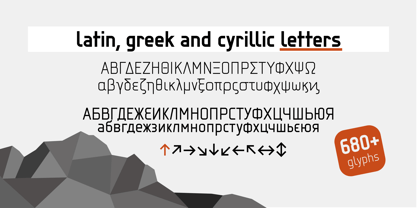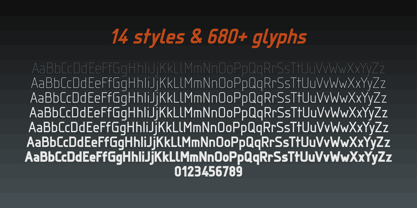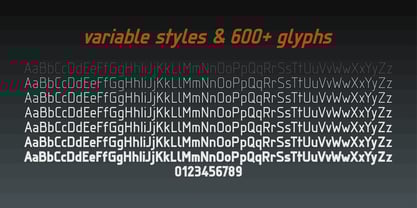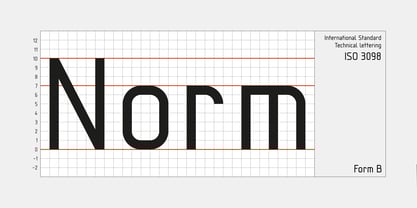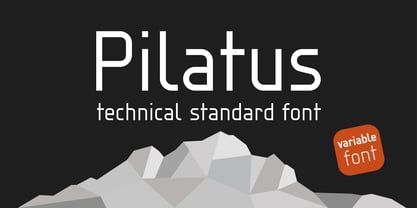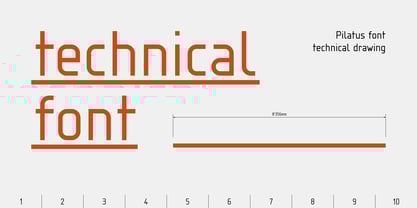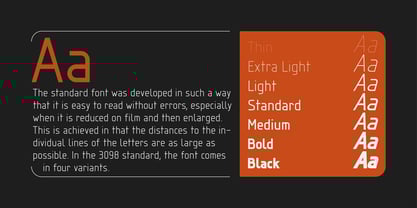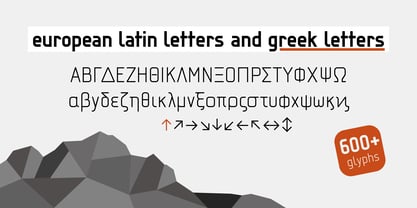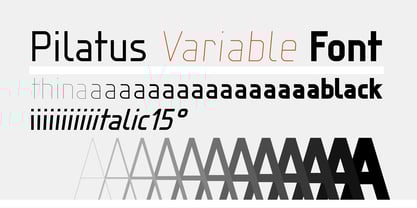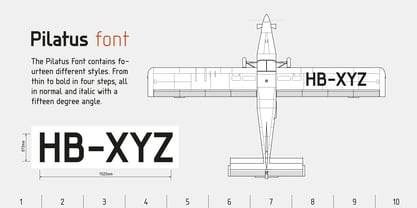
Pilatus Variable
by Milan Rohrer Studio
The Pilatus Variable Font Family was designed by Milan Rohrer and published by Milan Rohrer Studio. Pilatus Variable contains 1 styles. More about this family
This is the variable version of the Pilatus font, combining all possible styles into a single, highly flexible file. It allows continuous adjustment of weight and slant, providing precise control between the extremes of the static styles. The variable format ensures efficient performance, smaller file sizes, and smooth transitions, making it ideal for responsive interfaces, technical applications, and modern design workflows while preserving the strict geometric character of the Pilatus family.
I'm an Industrial Designer based in Switzerland. Now working on physical product design in several industries I've always been driven by the power of graphic design. Clearly geometrical forms and precise forms inspired me. When I was learning technical drawing of airplanes in my apprenticeship I was impressed by the precision of the standard fonts. I haven't found a good digital font that has this accuracy of the old analogue standards. So I started creating my own fonts.